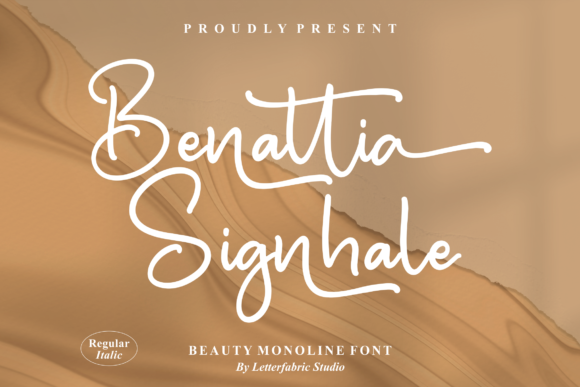
The Benattia Signhale Font: A Beautifully Graceful Script to Elevate Your Designs
I’ll never forget the design project that led me to discover the stunning Benattia Signhale font. I was working on a branding project for a luxury wedding planner, and I was struggling to find the perfect script font that exuded elegance and sophistication. The client wanted a font that would make their brand stand out, but still convey a sense of classic romance. After hours of searching, I stumbled upon Benattia Signhale, and it was love at first sight! ✨
An Honest Review of Benattia Signhale
- ✨ Beautifully graceful script style that’s perfect for luxury brands, weddings, and high-end designs
- ✅ Versatile and can be used for a variety of design projects, from logos to social media graphics
While Benattia Signhale is an amazing font, there are a few things to keep in mind: 🤔
- ⚠️ Some users may find the font a bit too ornate for certain design projects
- ⚠️ May not be the best choice for body text, as it’s a script font and can be difficult to read in large blocks
The Designer Inspiration Behind Benattia Signhale
The story behind Benattia Signhale is one of passion and creativity. The font was designed by a talented type designer who wanted to create a script font that would capture the essence of luxury and sophistication. Inspired by classic calligraphy and elegant typography, Benattia Signhale was born. 💫
Q: Is Benattia Signhale suitable for body text?
A: While Benattia Signhale is a beautiful font, it’s not ideal for body text. As a script font, it can be difficult to read in large blocks, so it’s best used for headings, titles, and other display text.